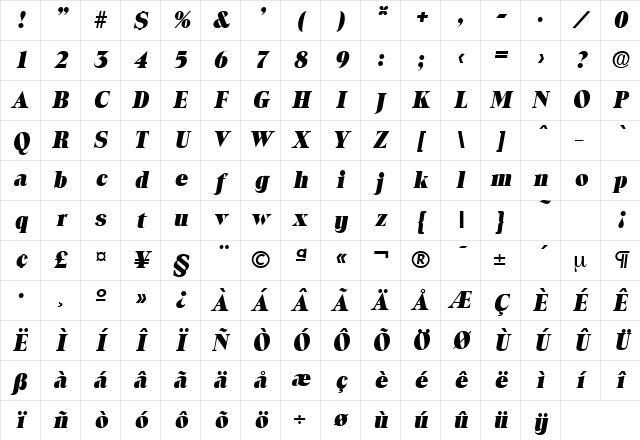
Toledo-Serial-Heavy RegularItalic
Design Context for Toledo-Serial-Heavy
Toledo-Serial-Heavy is a composed and adaptable typeface that performs quietly and consistently across a wide range of design contexts. The slanted form adds forward momentum and visual energy.
Pro Tip: Use Toledo-Serial-Heavy for emphasis, pull quotes, and subheadings where its slanted energy can add rhythm to the layout.